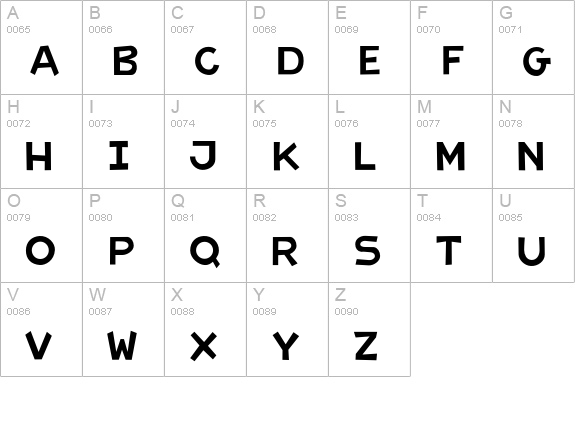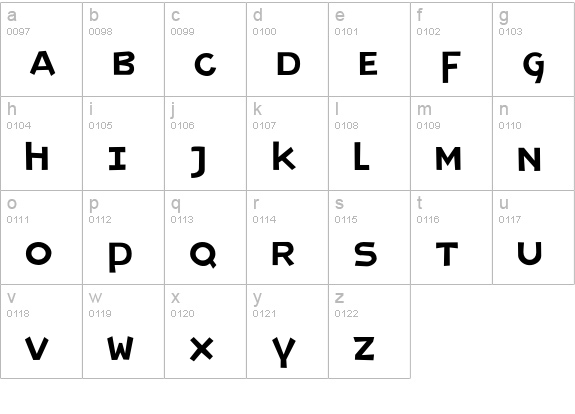
Raveline Font Details
Introducing Raveline, a stunning display font that effortlessly combines elegance with a touch of playfulness. Designed with meticulous attention to detail, this versatile typeface is perfect for adding a unique and eye-catching element to any design project. Raveline stands out with its clean lines, beautifully balanced curves, and distinctive letterforms that exude sophistication. Every glyph is carefully crafted to create a harmonious visual experience, making this font a true work of art. Whether you're designing a logo, a headline, a poster, or even a wedding invitation, Raveline will captivate your audience and leave a lasting impression. Its versatility allows it to be used in a wide range of design styles, from modern and minimalistic to vintage and retro. But the best part? Raveline is free for personal and commercial use, making it accessible to designers and creatives around the world. You can easily download this font at FontsMarket.com, where it is readily available for all your design needs. With Raveline, you can effortlessly elevate your projects and add a touch of sophistication. So why wait? Download this remarkable font today and let your creativity soar to new heights.